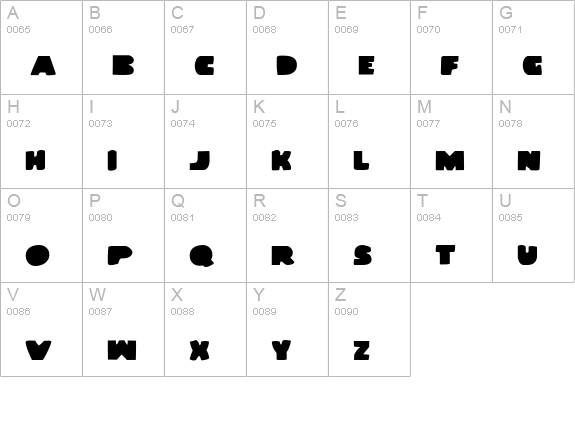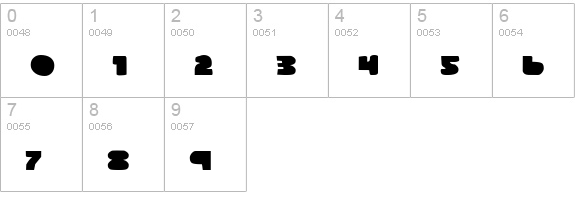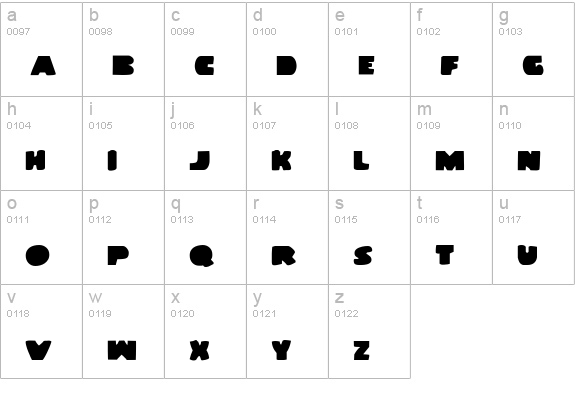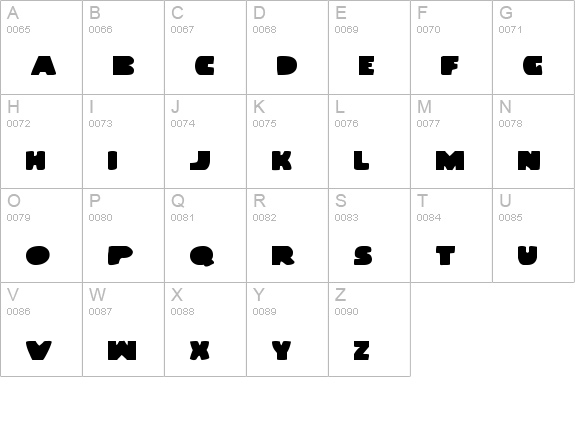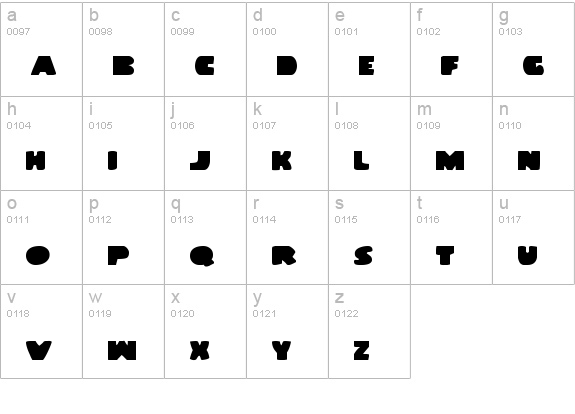
Land Whale font is a unique and eye-catching typeface that is sure to make a bold statement in any design project. With its distinctive curves and bold lines, this font captures attention and conveys a sense of strength and confidence. Perfect for headlines, logos, posters, and more, Land Whale font is a versatile choice that can be used in a variety of creative ways. Its modern and edgy aesthetic adds a touch of sophistication to any design, while still maintaining a playful and approachable feel. But what sets Land Whale font apart is not just its stylish design, but also the fact that it is completely free! Yes, you read that right. This amazing font is freely available to download at FontsMarket.com. Whether you are a professional designer looking to spice up your projects or simply someone who loves experimenting with different fonts, Land Whale font is a must-have in your collection. Its bold and distinctive look will surely make your designs stand out from the crowd. So why wait? Head over to FontsMarket.com now and grab your free download of Land Whale font. Unleash your creativity and let this amazing typeface take your designs to the next level.